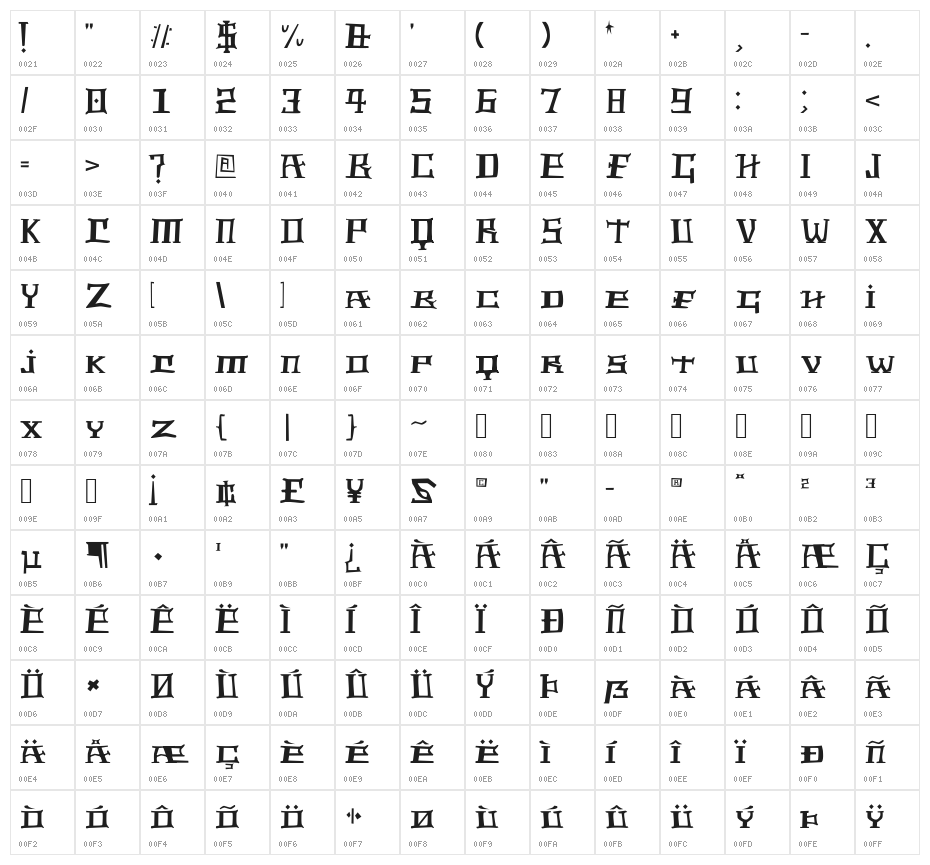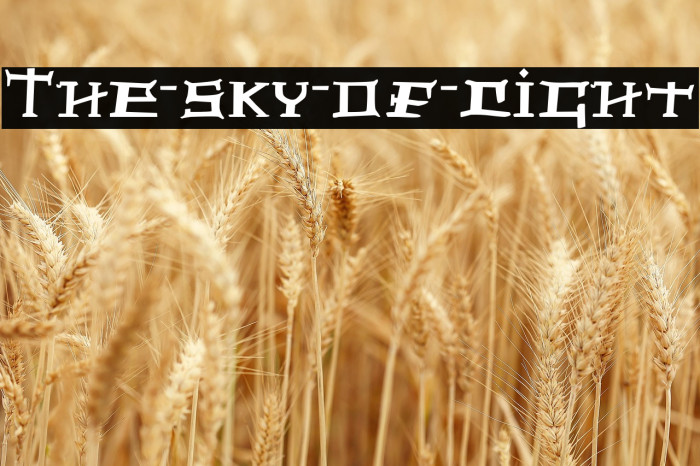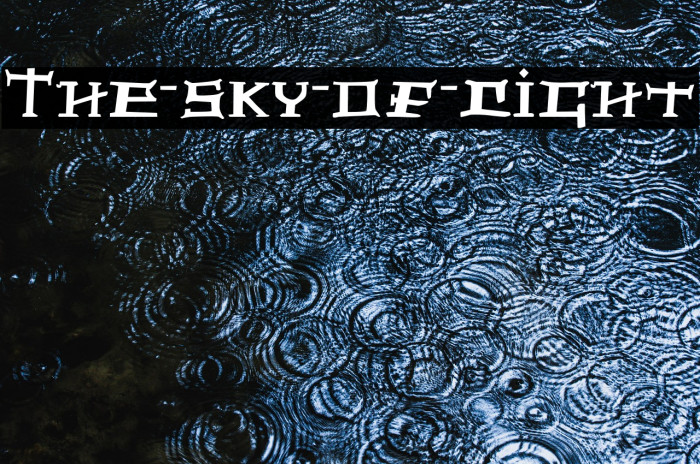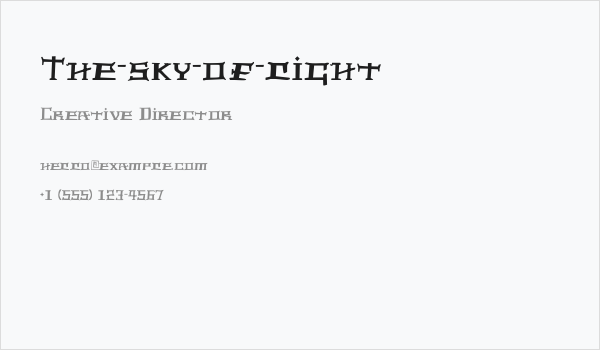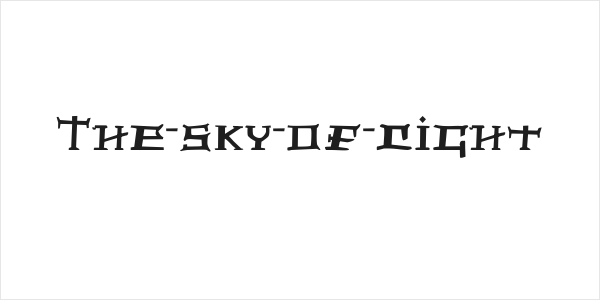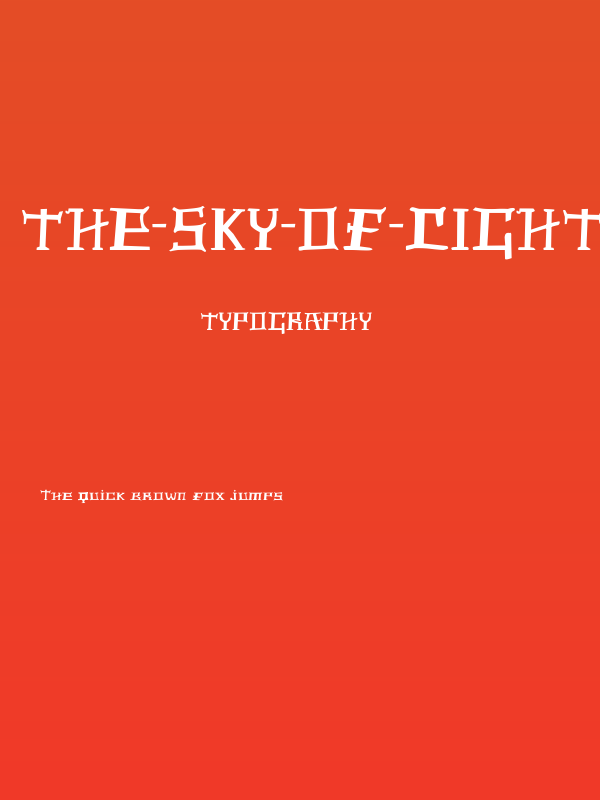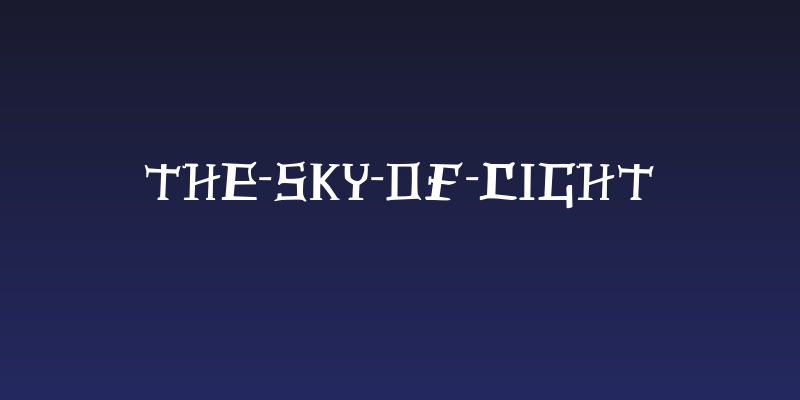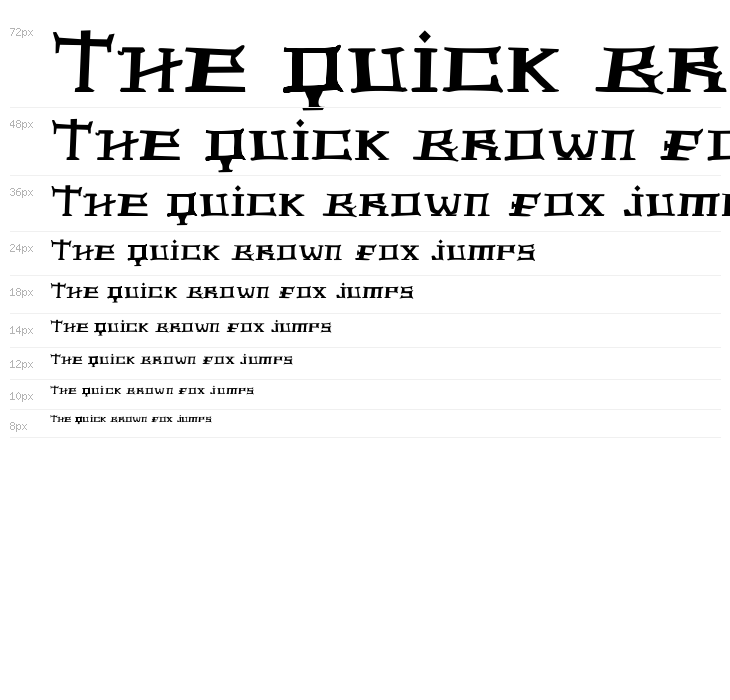
The-sky-of-light Font
The-sky-of-light Description
This font features a bold and striking design with a distinct Gothic influence, characterized by sharp edges and angular forms. The uppercase letters are particularly prominent, with a strong vertical emphasis and unique serifs that give each character a sense of individuality. The lowercase letters maintain the same stylistic elements, ensuring consistency across the typeface. Numbers and special characters are designed with the same attention to detail, making them stand out with their bold presence. This font's dramatic style is ideal for creating a strong visual impact.
| Proposed Projects | Ideal for posters, album covers, branding, and any project requiring a dramatic and bold typeface. |